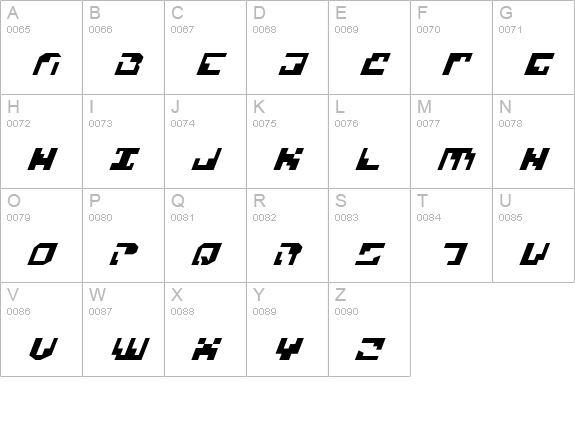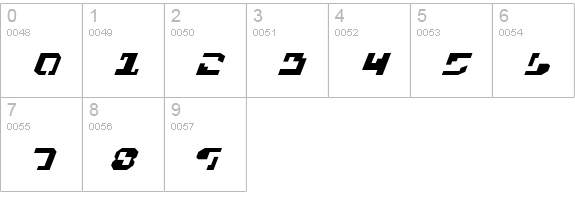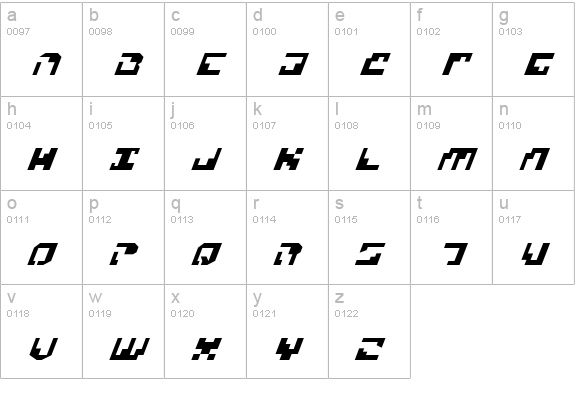
Xenophobia Italic is a distinctive, italic variant in the Xenophobia typeface family \xE2\x80\x94 well suited to design and typography projects.
Xenophobia Italic font is a striking and bold typeface that exudes a sense of strength and sophistication. Its sleek and modern design makes it perfect for a wide range of design projects, from branding to editorial design. The italicized style adds a touch of elegance and dynamism to any text, making it stand out with a unique flair. What makes Xenophobia Italic font even more appealing is the fact that it is freely available to download at FontsMarket.com. This means that you can easily access this stunning typeface and use it in your projects without any cost. Whether you're a professional designer or a hobbyist looking to add a touch of style to your creations, Xenophobia Italic font is a fantastic choice that won't break the bank. Download it today and elevate your designs with this exceptional font.